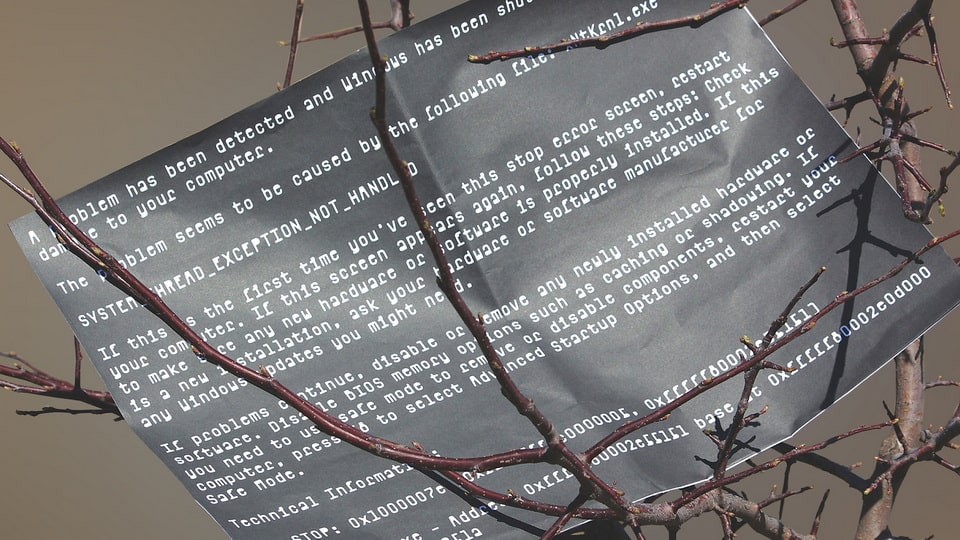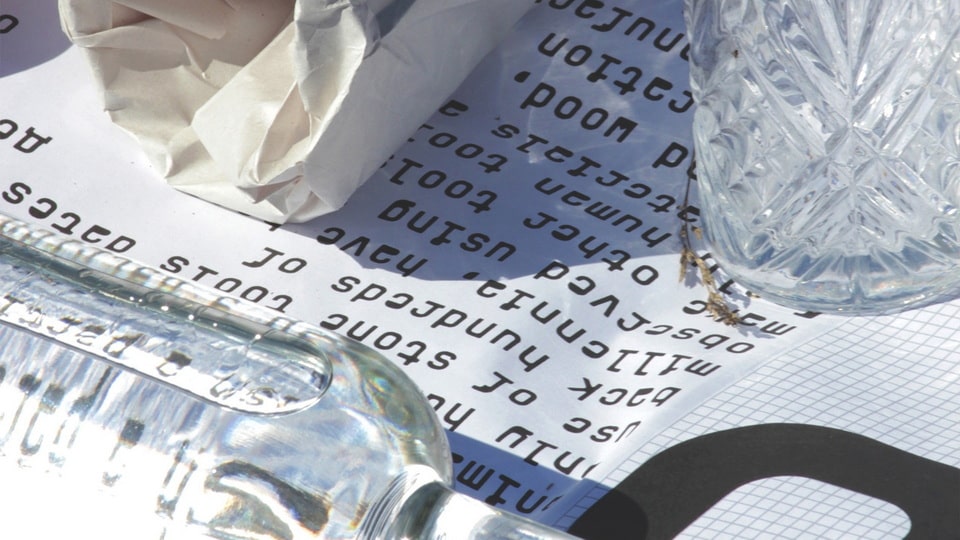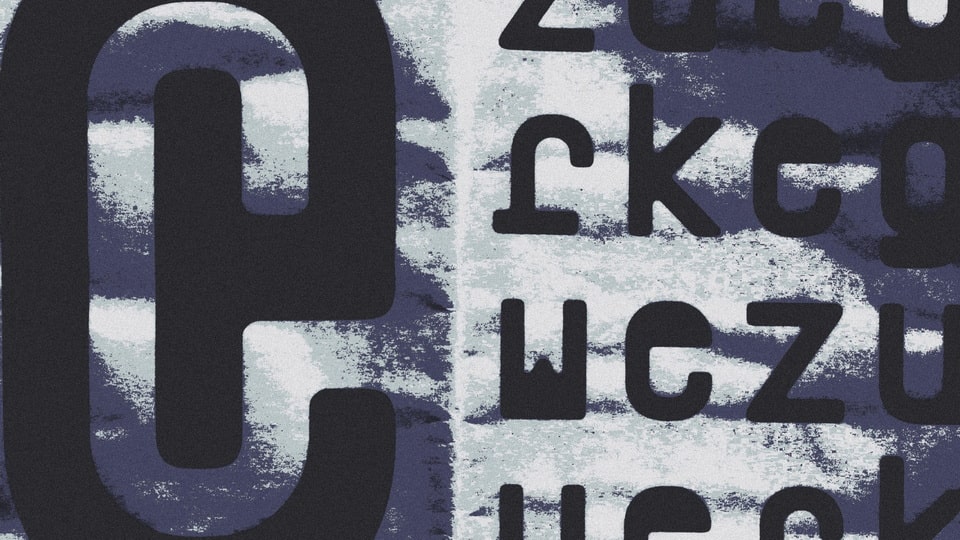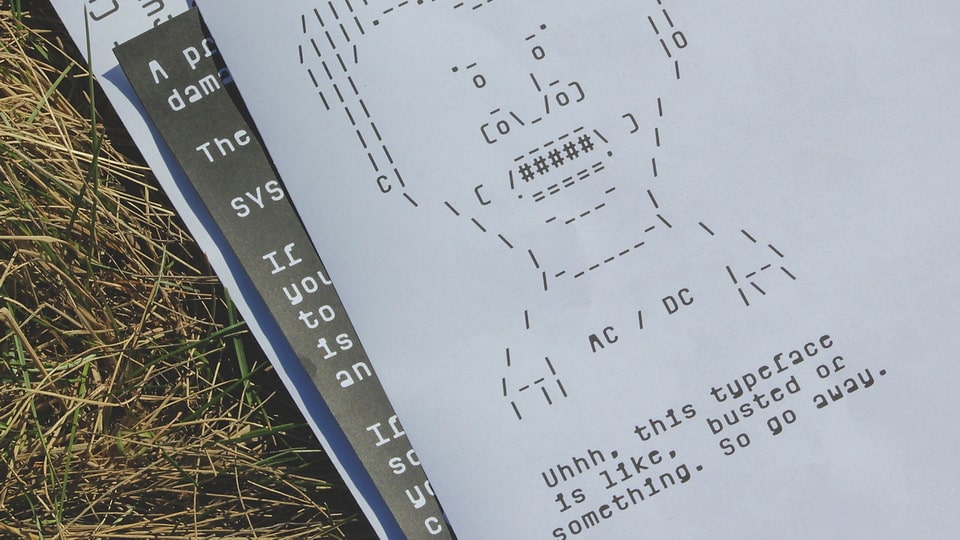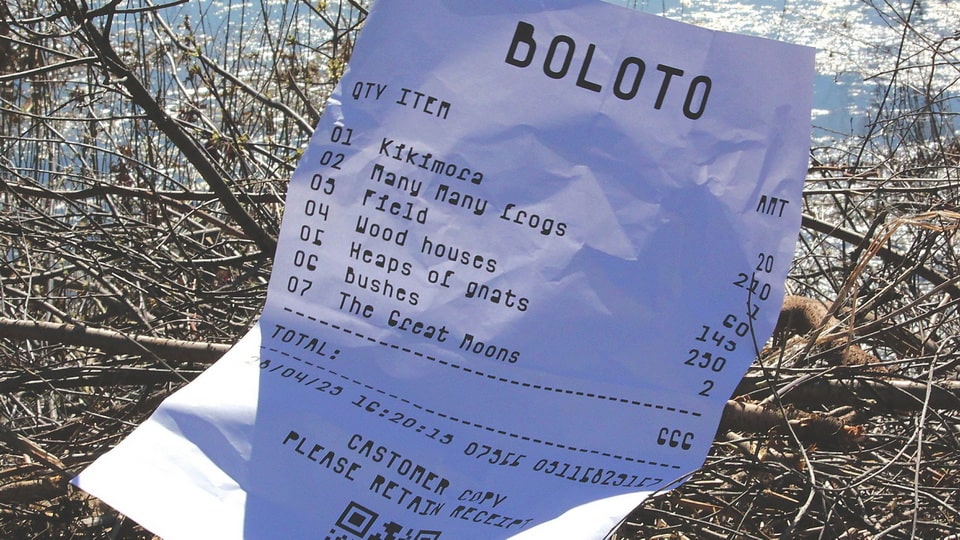
Werkzeug is a monospaced sans-serif typeface that redefines the genre with its rounded corners and inventive letterforms. Its consistent spacing and geometric structure provide clarity and balance, while the creative twists in each character add a unique, modern personality.
Perfect for coding environments, tech-inspired branding, minimalist posters, and innovative editorial layouts, Werkzeug font combines precision with creativity. Its rounded corners soften the rigidity of a traditional monospaced font, making it approachable and versatile for a wide range of projects.
Use Werkzeug font to bring a fresh, playful edge to your monospaced designs!